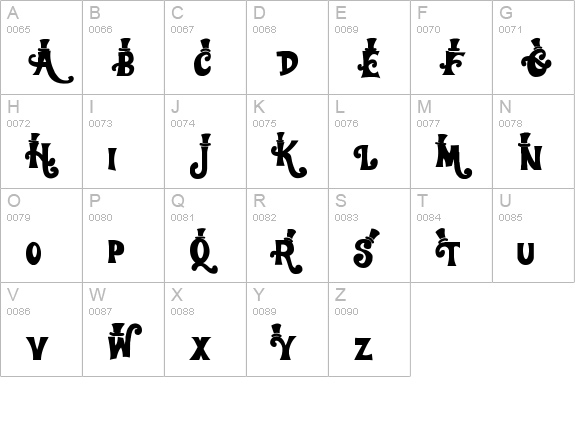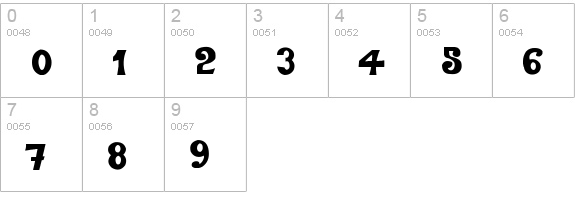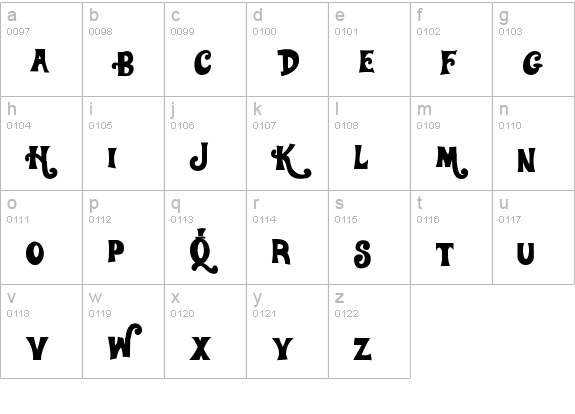
WillyWonka Font Details
Introducing the delightful and whimsical WillyWonka font! This enchanting typeface is inspired by the beloved character from Roald Dahl's classic tale, and is sure to bring a touch of magic to any project. With its playful curves, quirky letterforms, and charmingly irregular strokes, WillyWonka font captures the essence of pure imagination. But what sets WillyWonka font apart from the rest is that it is not just a delightful font - it is also free! That's right, you heard it correctly. This captivating typeface is freely available to download at FontsMarket.com. Whether you're a designer looking to add a touch of whimsy to your creations, or a fan of the legendary Willy Wonka himself, this font is a must-have for your collection. Imagine the possibilities with WillyWonka font. It's perfect for children's books, playful invitations, eye-catching posters, or any project that calls for a sprinkle of joy. Its versatility allows it to shine in both digital and print mediums, and its unique charm is guaranteed to captivate viewers of all ages. So why wait? Unleash your creativity and download WillyWonka font today from FontsMarket.com. Join the countless designers, artists, and dreamers who have already fallen under the spell of this delightful typeface. Let WillyWonka font take you on a journey through the whimsical world of imagination, where anything is possible and dreams come true.